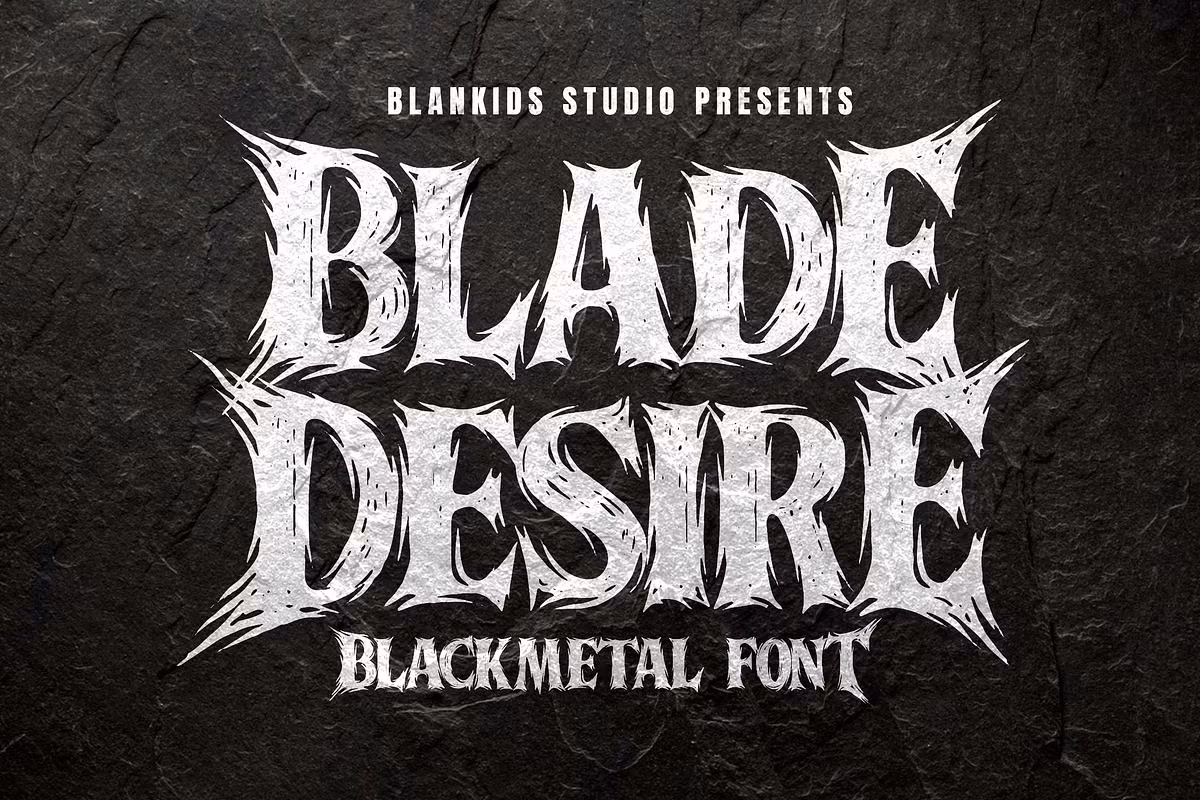
Blade Desire - A Blackmetal Font Free Download is a bold and intense typeface inspired by the raw, edgy aesthetic of black metal music and culture. Featuring sharp, angular edges and a distressed, grungy texture, this font is perfect for heavy metal band logos, album covers, posters, event flyers, and any design that needs an aggressive, dark vibe.
Its fierce and rough appearance gives your project a powerful, rebellious look, making it ideal for designs related to music, streetwear, and alternative culture. Whether you’re creating promotional materials for a band or designing a gothic-inspired graphic, Blade Desire brings the right amount of intensity.